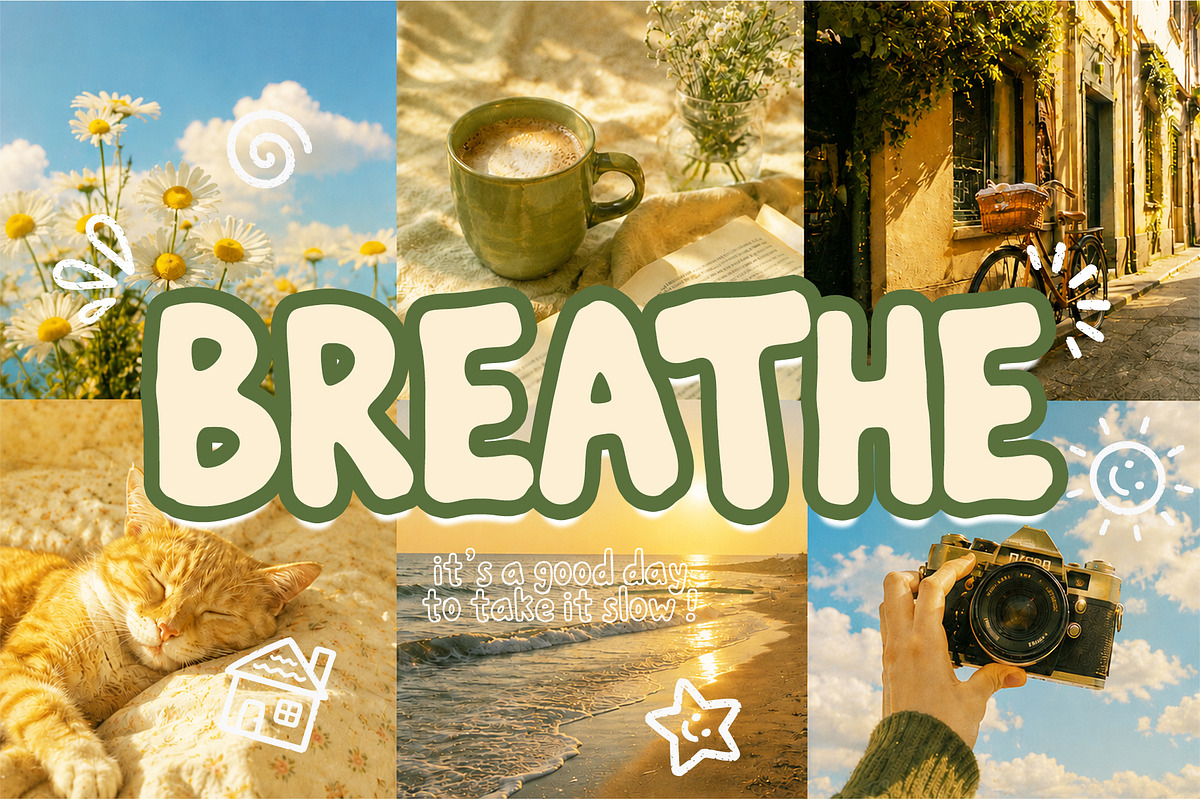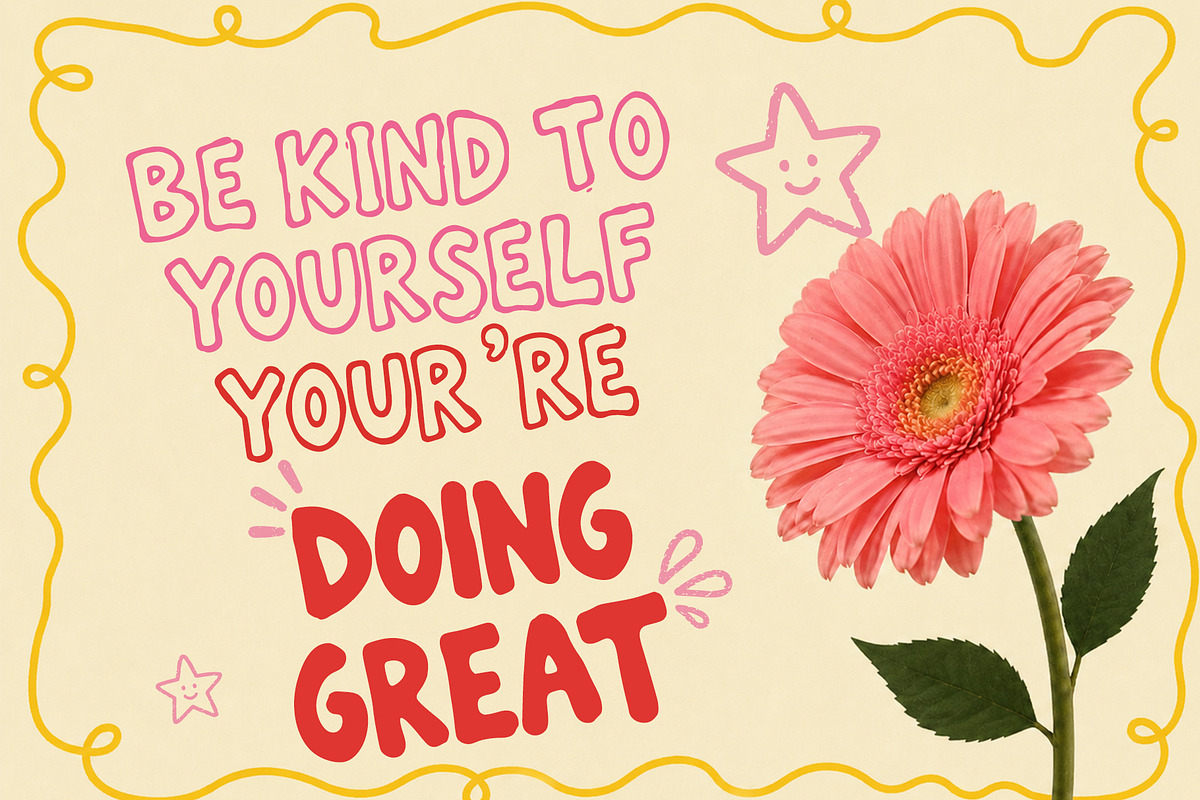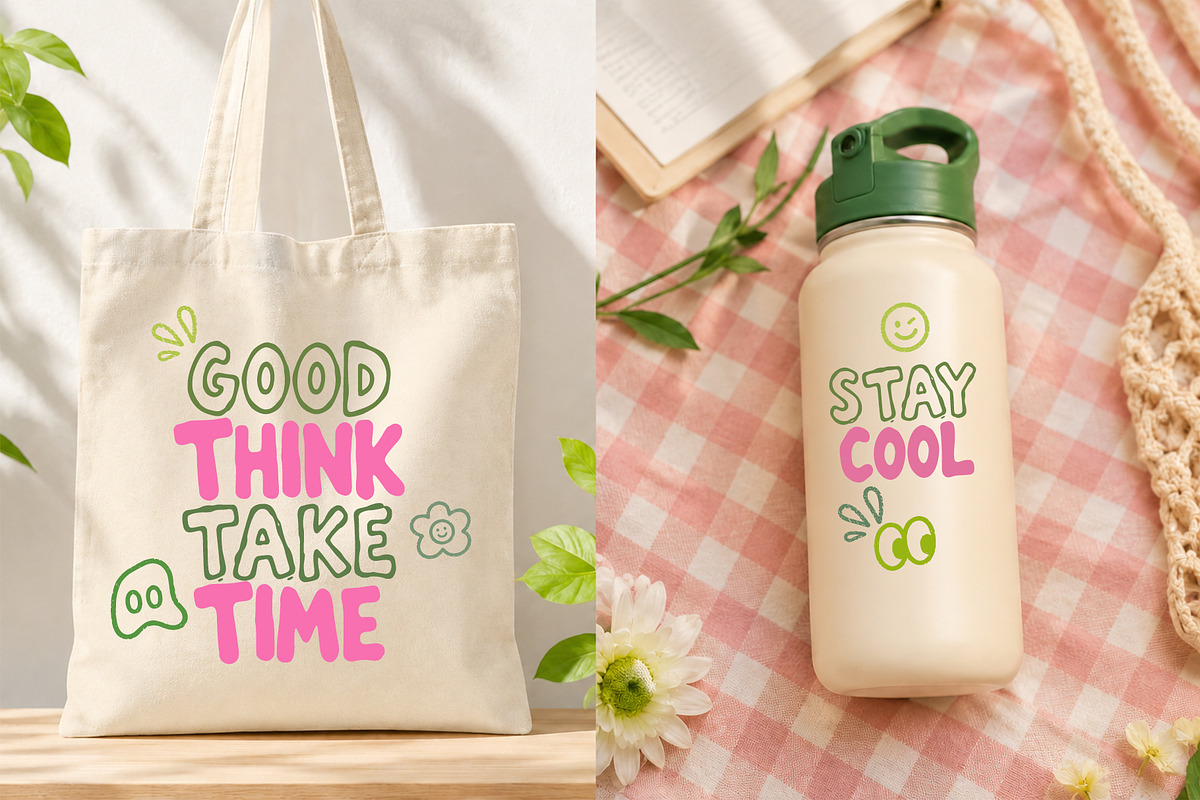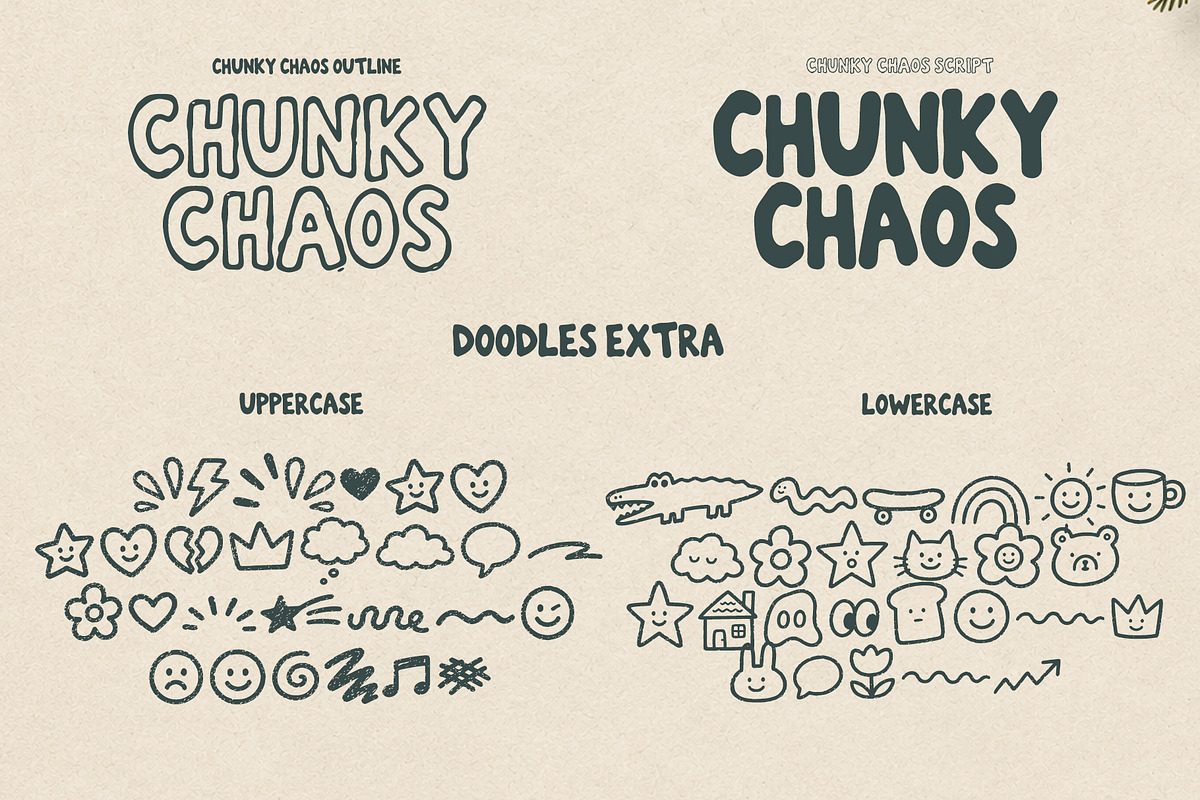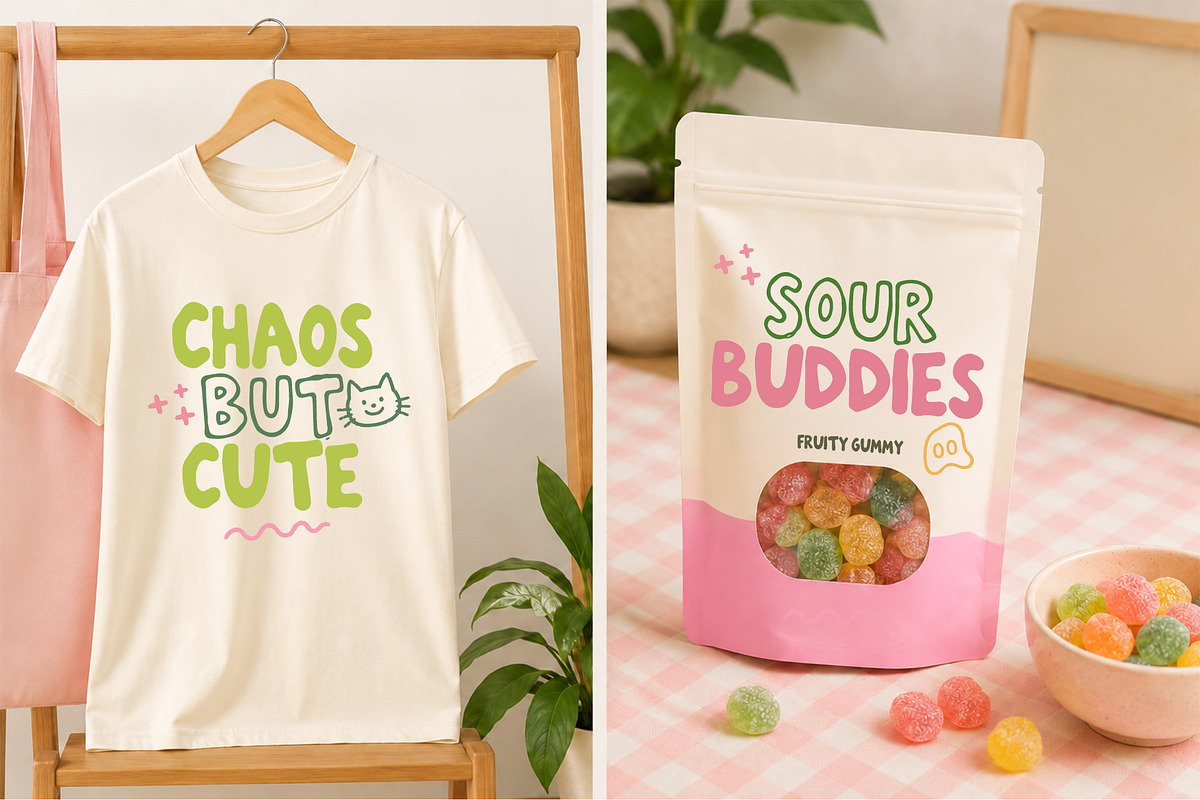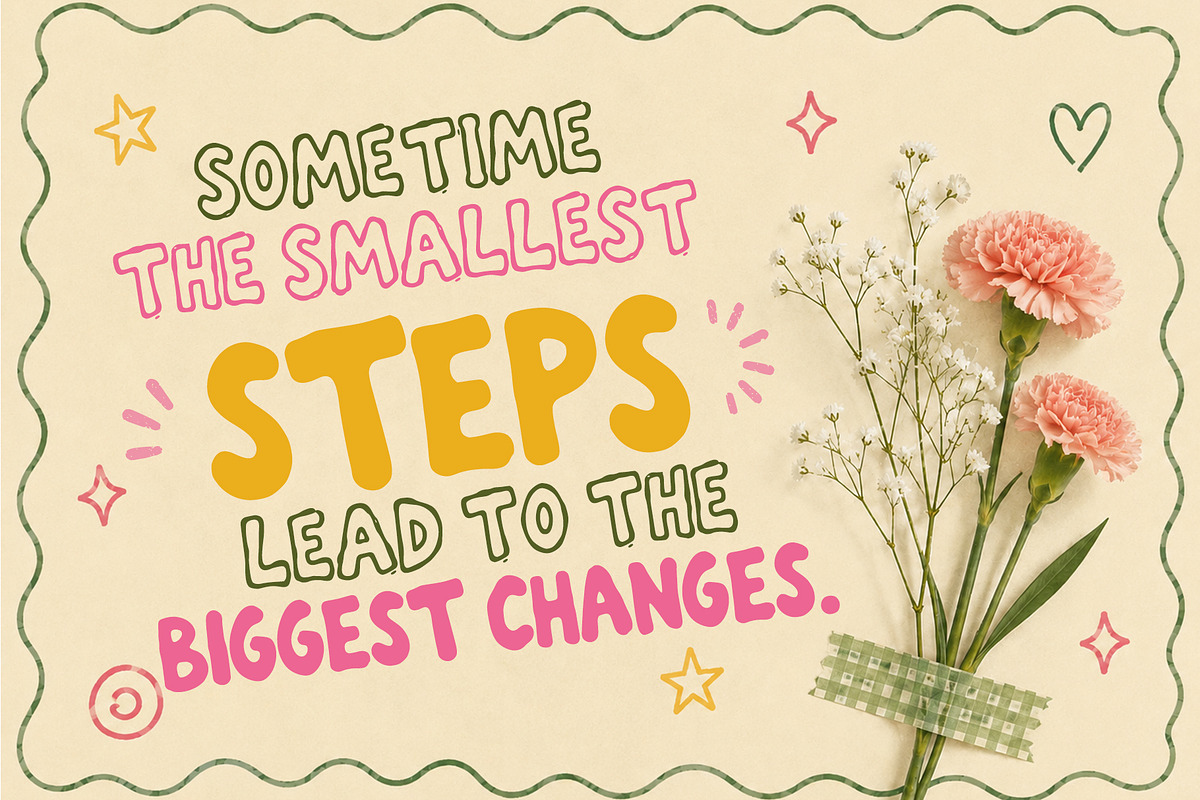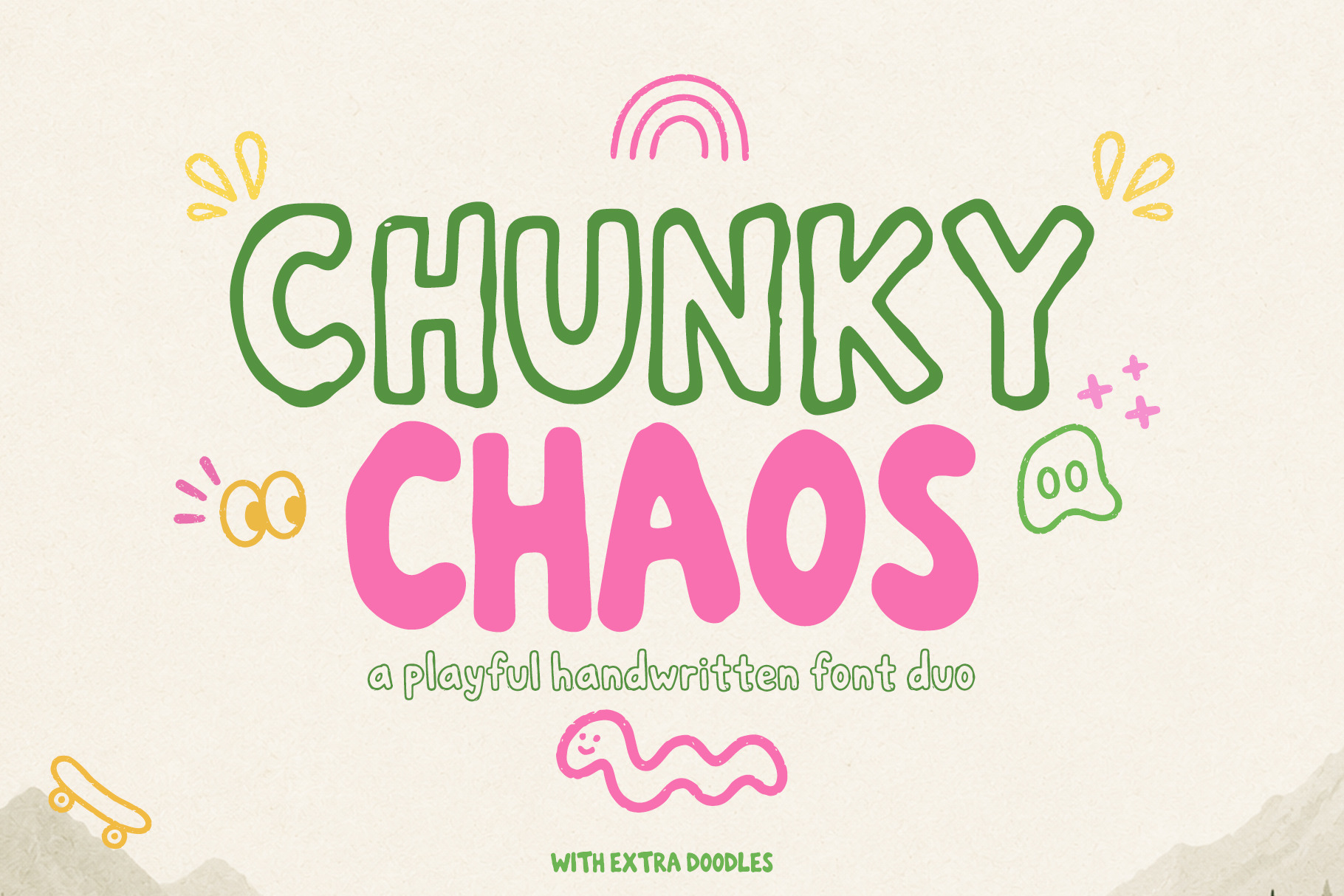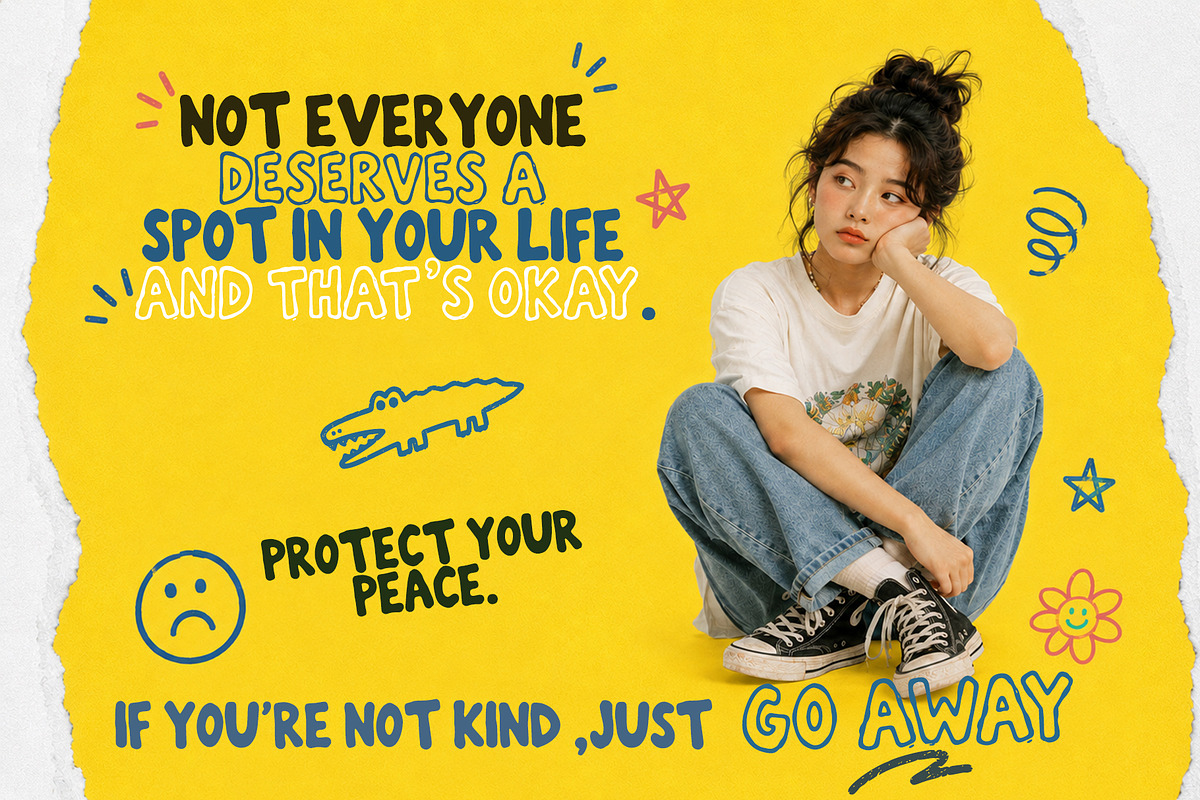
Chunky Chaos Handwritten Font Duo
Chunky Chaos – Playful Handwritten Font Duo with Extra Doodles
Chunky Chaos is a playful handwritten font duo designed to bring fun, creativity, and charm to any design project. Featuring bold rounded characters, an outline companion font, and a collection of extra hand-drawn doodles, this font set makes it easy to create cheerful and eye-catching designs.
The combination of chunky lettering and whimsical doodles adds a unique handmade touch that works beautifully across both digital and print applications.
Chunky Chaos Solid Font
Chunky Chaos Outline Font
Uppercase Letters (A–Z)
Lowercase Letters (a–z)
Symbols & Special Characters
Extra Hand-Drawn Doodles